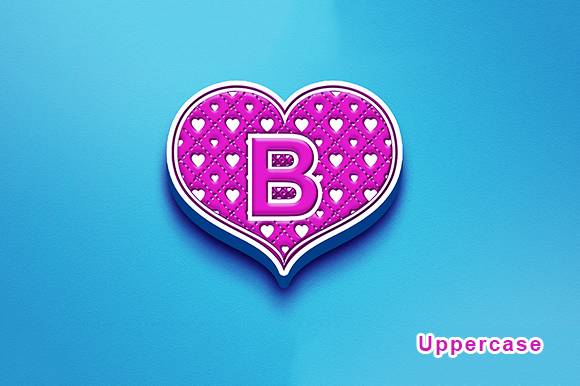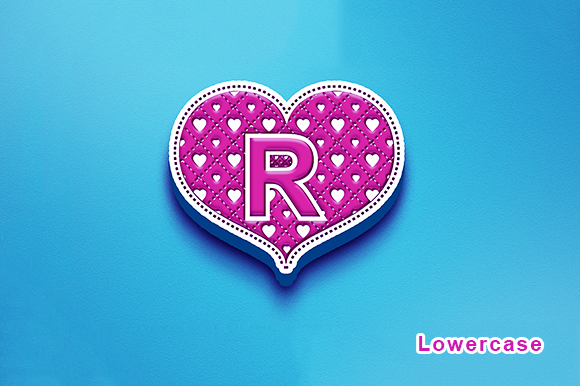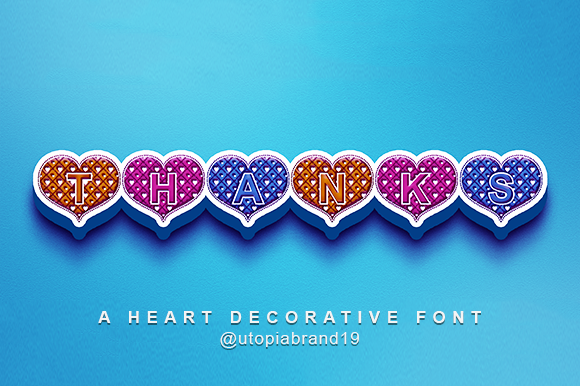
Introduction to Nona Font
Have you ever been in the middle of a creative project, pouring your heart and soul into it, only to realize that the perfect font is missing? This is exactly what happened to me when I was designing a special Valentine’s Day card for my loved one. I had the perfect idea, but the font just wasn’t there to bring it to life. That’s when I discovered the Nona Font, and it completely changed the game.
As a designer, I know how valuable a great font can be to a project. It’s what takes it from good to great, and the Nona Font is no exception. With its warm and lovely look, it’s perfect for winter letters, invitations, and any other design idea you can think of. The best part? It’s available for free download, making it an accessible design resource for anyone.
Key Features of Nona Font
- Unique, stylish font with transparent background, perfect for adding a touch of elegance
- Large character set with a wide range of glyphs, making it suitable for various creative projects
- Designed with a modern aesthetic, Nona Font is an excellent choice for designers seeking a high-quality, free design resource
Honest Review: Nona Font
As a designer, I’m always on the lookout for high-quality design resources to elevate my creative projects. Recently, I had the chance to try out the Nona Font, and I’m excited to share my thoughts with you.
What works well: ✨ The Nona Font is a beautifully crafted font that boasts a modern and elegant design. Its high-quality glyphs make it perfect for a variety of applications, from digital displays to print materials. I particularly appreciate the transparent background, which allows for seamless integration into any design project.
- High-quality glyphs and modern design
Nona Font
The Nona Font is a free download, high-quality design resource ideal for creative projects. Its transparent background makes it versatile for various applications.
Tips for Getting the Most Out of Nona Font
Experiment with different font sizes, colors, and combinations to achieve the desired effect. You can also use the font in conjunction with other design resources for added visual interest.
The Nona Font is suitable for a variety of creative projects, including graphic design, digital art, and web design. Its transparent background makes it ideal for creating custom graphics and illustrations.
Montserrat is a popular, high-quality font designed for use in creative projects. It features a modern and sleek design, making it perfect for use in logos, typography, and other design elements. Montserrat is a great alternative to Nona Font when you need a font with a strong, urban feel.